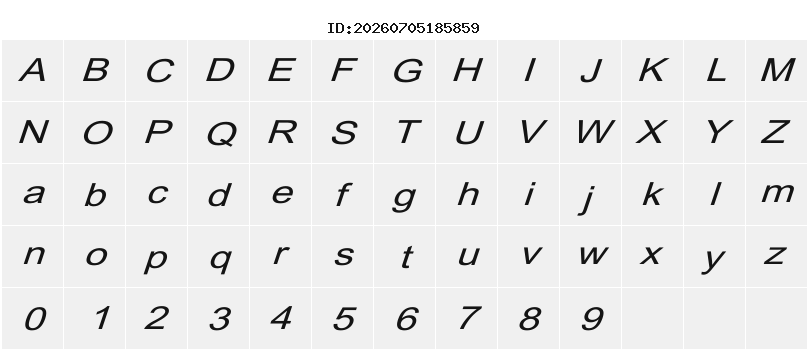
Dixon Wd Italic Preview
• Font Name: Dixon Wd Italic
• Full Font Name: Dixon Wd Italic
About Dixon Wd Italic.ttf
Dixon Wd Italic.ttf is a modern, elegant sans-serif font designed for ultimate readability and visual harmony. Perfect for branding, headlines, web design, and print materials.